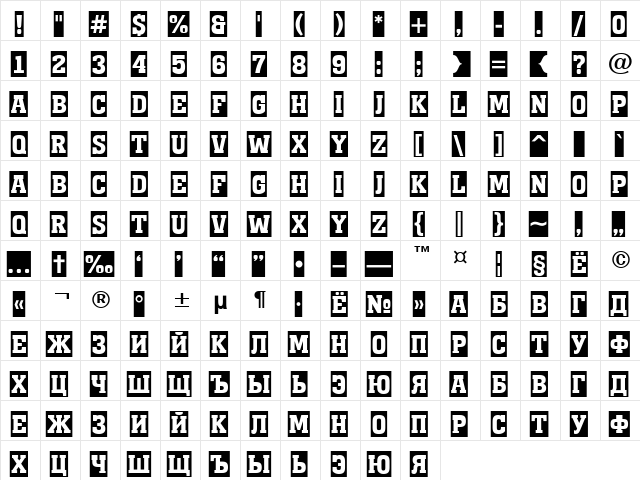
a_MonumentoTitulSl Normal
Design Context for a_MonumentoTitulSl Typeface
a_MonumentoTitulSl offers clean, dependable letterforms without strong stylistic allegiance, making it a practical choice for designers who need flexibility.